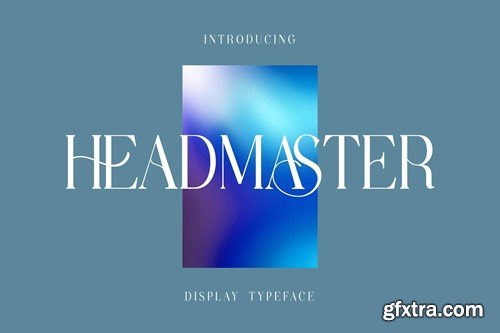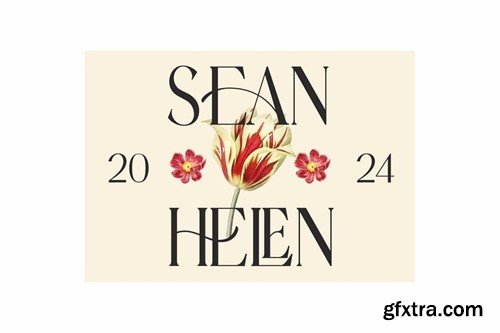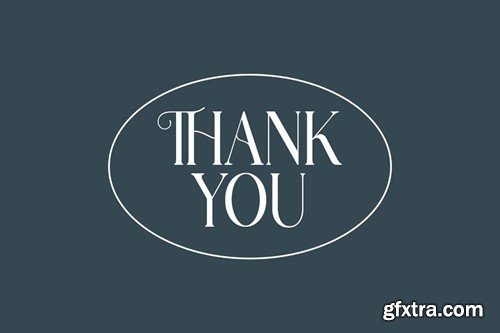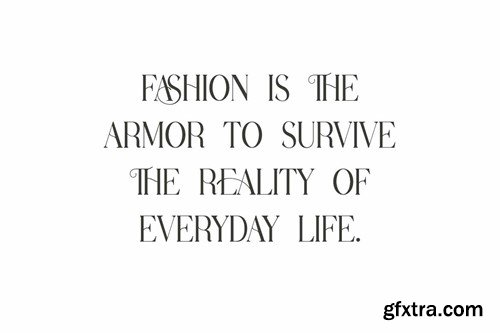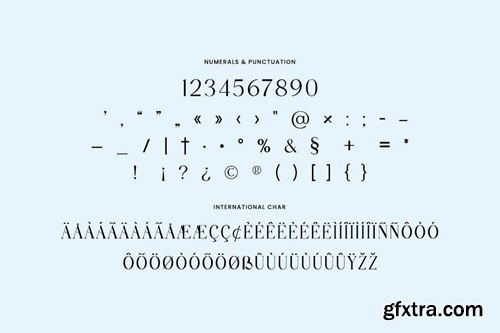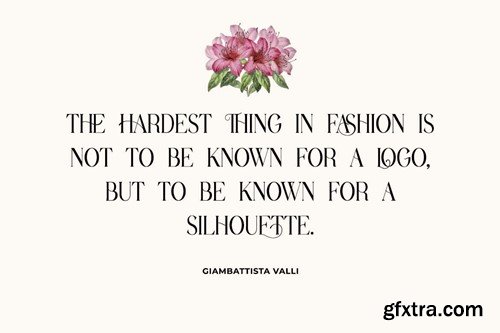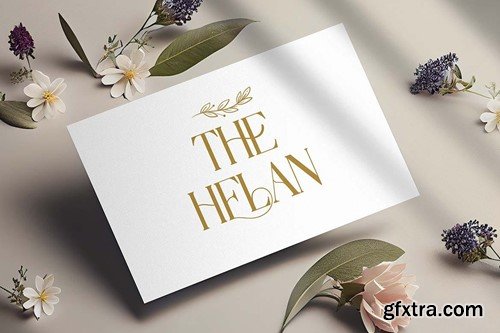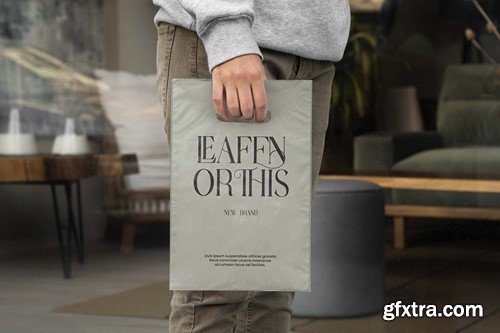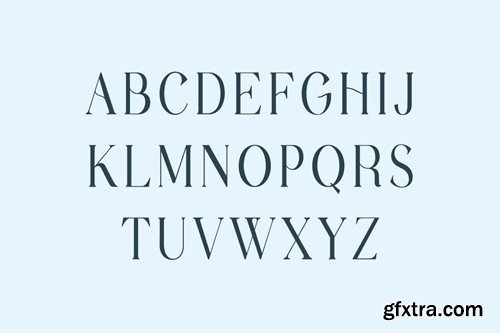
Headmaster Serif Display Typeface HEBXWQF
Headmaster Serif Display Typeface
Introducing our new product the name is Headmaster Serif Display Typeface. Headmaster Serif Display Typeface that feels beautiful classy, elegant, and modern. This font is perfectly suited for a wide variety of projects, such as signature, stationery, logo, wedding, typography quotes, magazine or book covers, website headers, branding, packaging design, and more. Also, fashion-related branding or editorial design displays both masculine and feminine qualities.